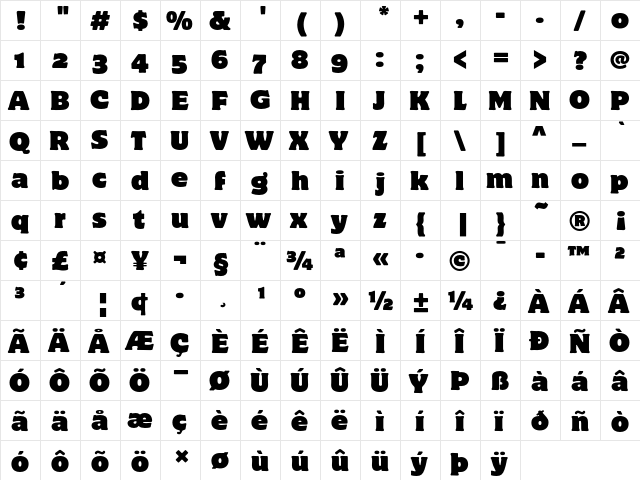
Motter Corpus ITC OS Regular
Design Context for Motter Corpus ITC OS Typeface
Motter Corpus ITC OS is a composed and adaptable typeface that performs quietly and consistently across a wide range of design contexts.